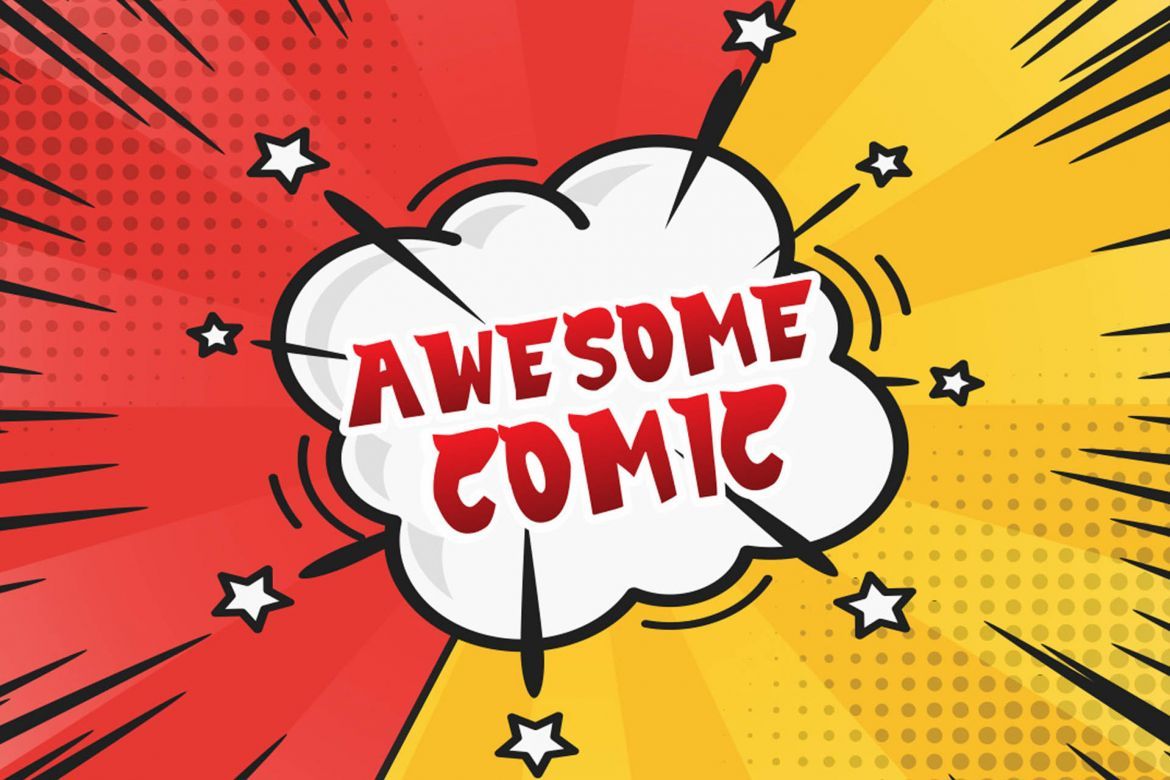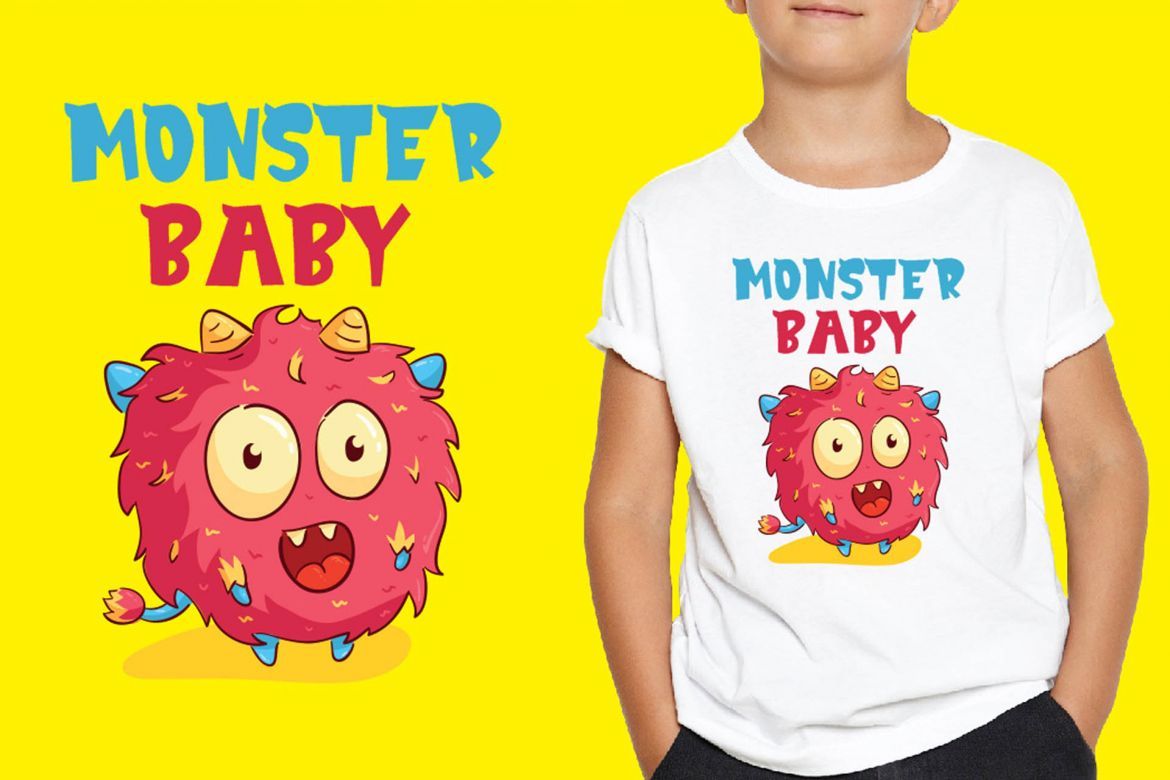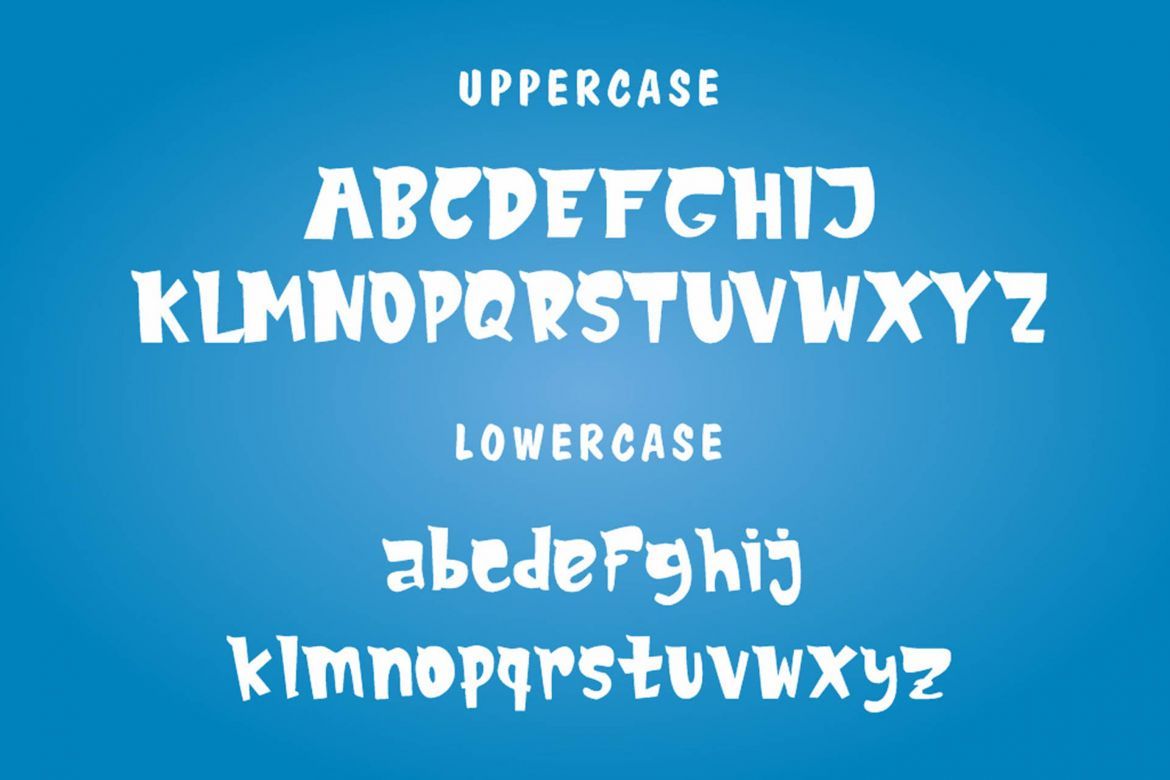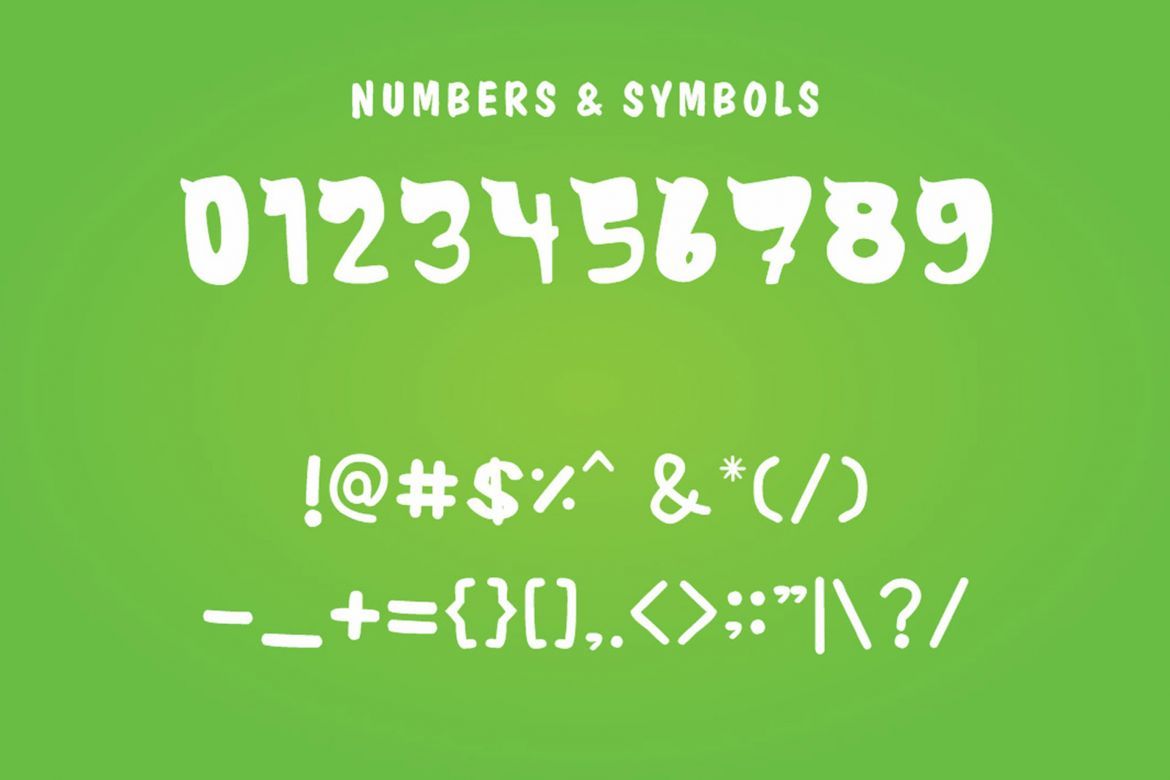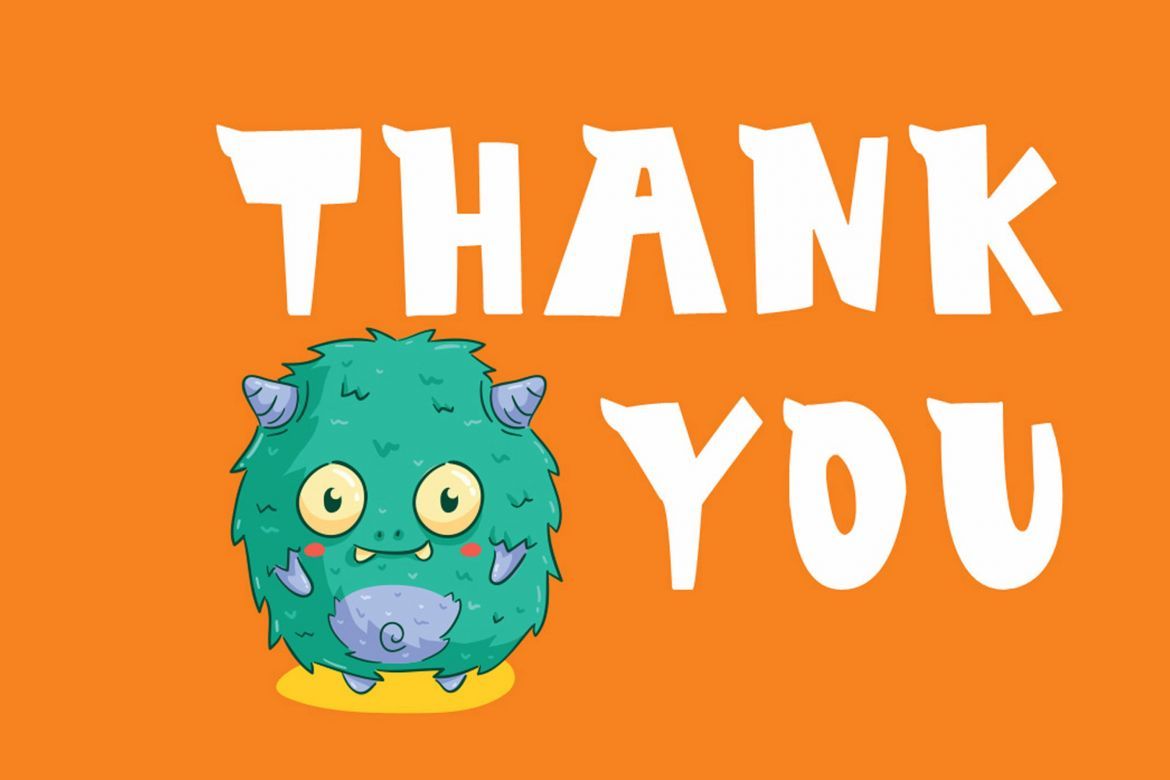
MonsTerio Funny Font
The MonsTerio is a fun and groovy font. It has bold letters with a cartoon-like feel, which makes it perfect for brochures, comic books, t-shirts, and much more!